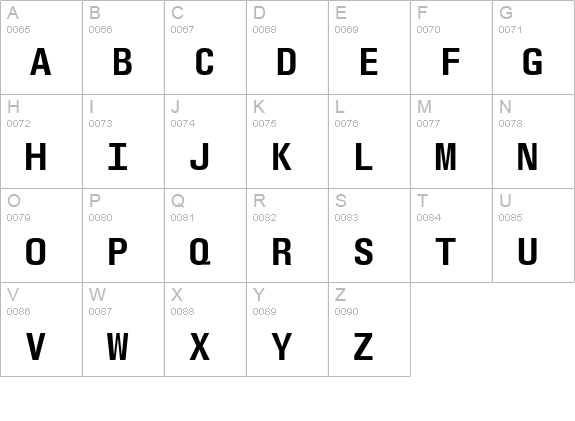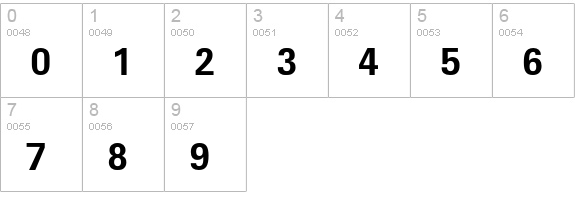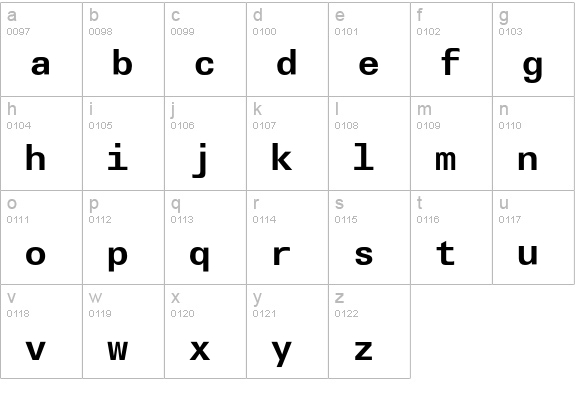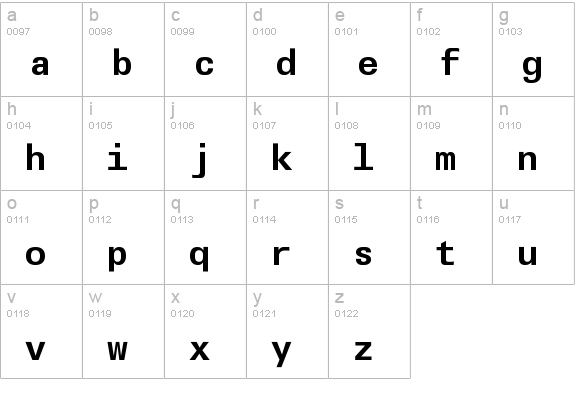
OlympiaEF-SemiBold Font Details
OlympiaEF-SemiBold is a sub-bold, structured variant in the OlympiaEF typeface family \xE2\x80\x94 well suited to sub-headlines and emphasised passages.
OlympiaEF-SemiBold font is a modern and stylish typeface that exudes confidence and sophistication. Its semi-bold weight strikes the perfect balance between elegance and readability, making it ideal for a wide range of design projects. With its clean lines and subtle curves, OlympiaEF-SemiBold brings a touch of sophistication to any text or headline. One of the best things about OlympiaEF-SemiBold font is that it is completely free to download at FontsMarket.com. This means you can easily access this beautiful typeface for all your creative needs without any cost. Whether you're working on a branding project, a website design, or any other creative endeavor, OlympiaEF-SemiBold font will elevate your work to the next level. Add a touch of modern elegance to your designs with OlympiaEF-SemiBold font, freely available for download at FontsMarket.com. Grab this versatile typeface today and bring a touch of sophistication to your projects.